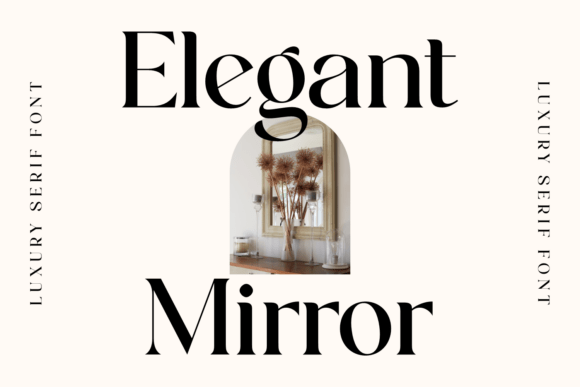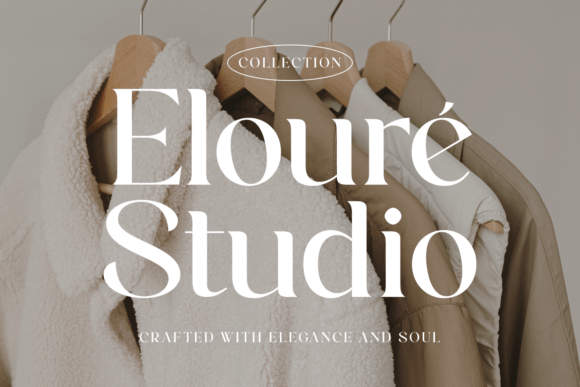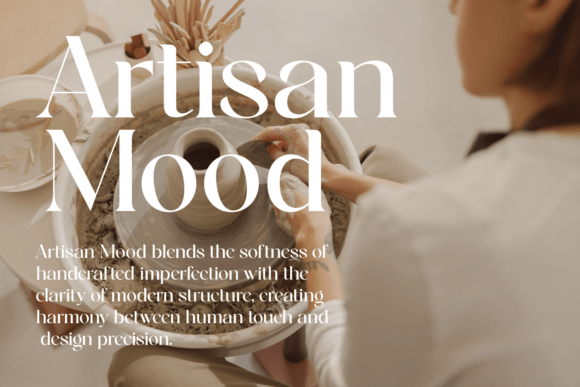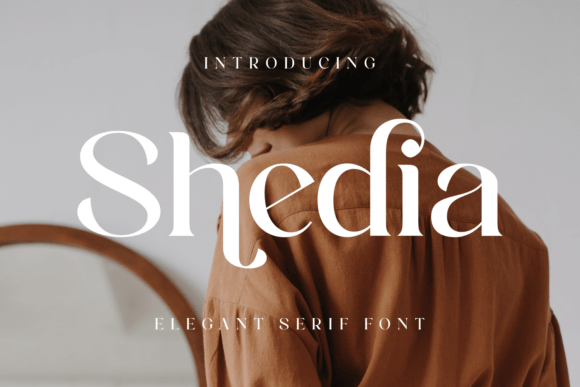
Introduction to Shedia Font
Shedia is a graceful and elegant serif font designed for sophistication and clarity.
With smooth curves, fine contrast, and high legibility, it’s the perfect choice for beauty branding, wedding invitations, or premium packaging The font’s flowing terminals and soft elegance elevate any project to luxurious levels.
Key Features of Shedia Font
Why Choose Shedia Font?
Shedia Font offers exceptional quality and versatility, making it a valuable addition to your design toolkit. Whether you’re creating for personal projects or commercial use, Shedia Font delivers professional results.